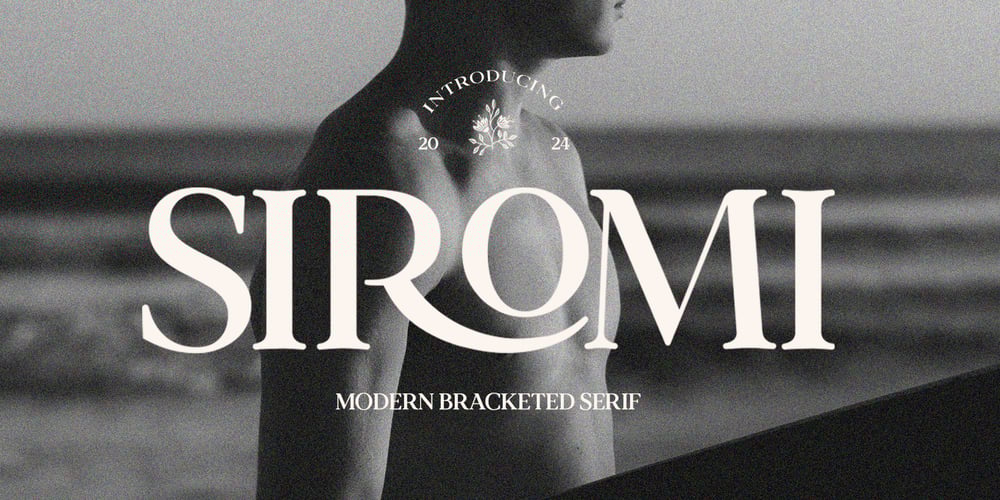
TBJ Siromi Modern Bracketed Serif Font Family was designed by Yusilo Oktaprima Ardani and published by Taboja Studio. TBJ Siromi Modern Bracketed Serif contains 1 styles and family package options. Siromi Modern Bracketed Serif is a contemporary typeface exuding sophistication and versatility. Its sleek lines and distinctive bracketed serifs offer a modern twist on classic typography, making it ideal for a wide range of design purposes.Whether it’s for branding, editorial layouts, or digital presentations, Siromi adds a touch of elegance and professionalism to any project. With its balanced proportions and attention to detail, Siromi stands out as a refined choice for designers seeking a modern yet timeless font solution.TBJ Siromi Serif Font Features:RegularUppercase And LowercaseAlternates And LigaturesNumerals & PunctuationAccented charactersMultilingual SupportUnicode PUA EncodedWe highly recommend using a program that supports OpenType features and Glyphs panels such as Adobe Illustrator, Adobe Photoshop CC, Adobe Indesign, or CorelDraw, so you can see and access all Glyph variations.While using this product, if you encounter any problem or spot something we may have missed, please don’t hesitate to drop us a message. We’d love to hear your feedbacks in order to further fine-tune our products.Stay creative and have a wonderful day.